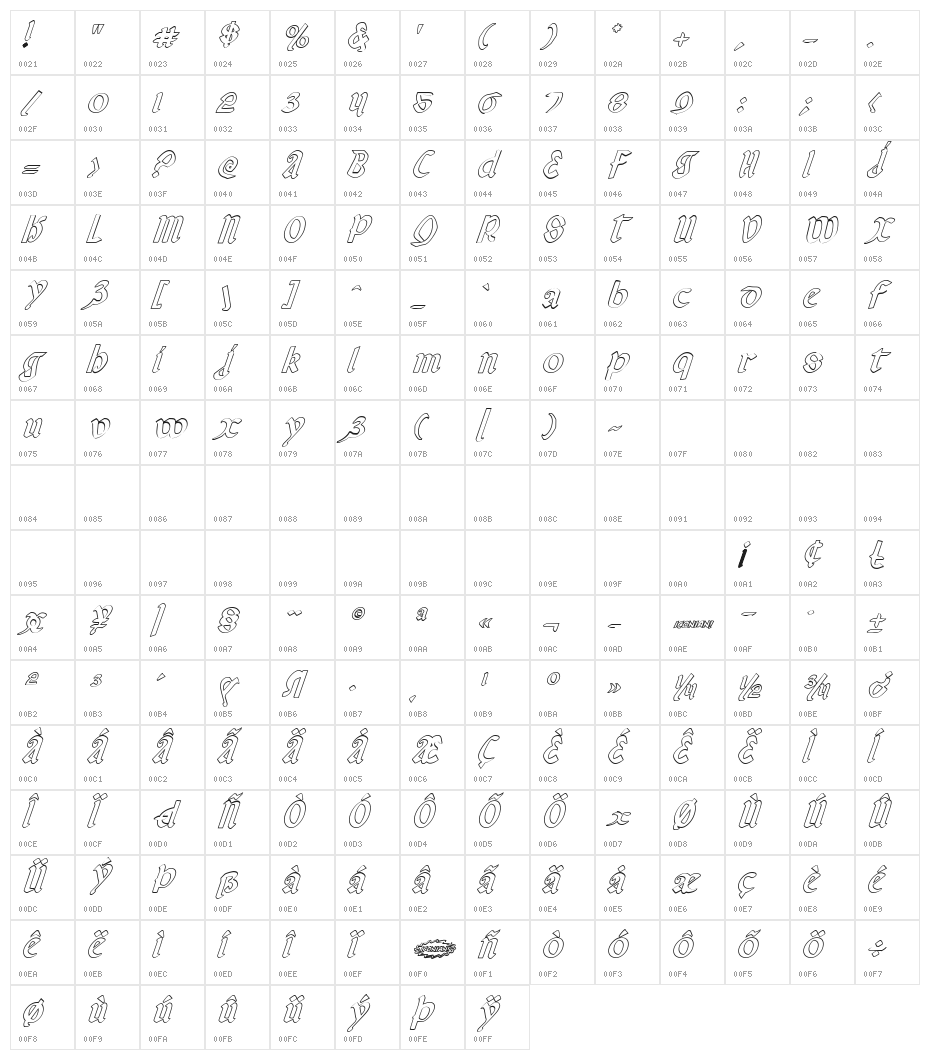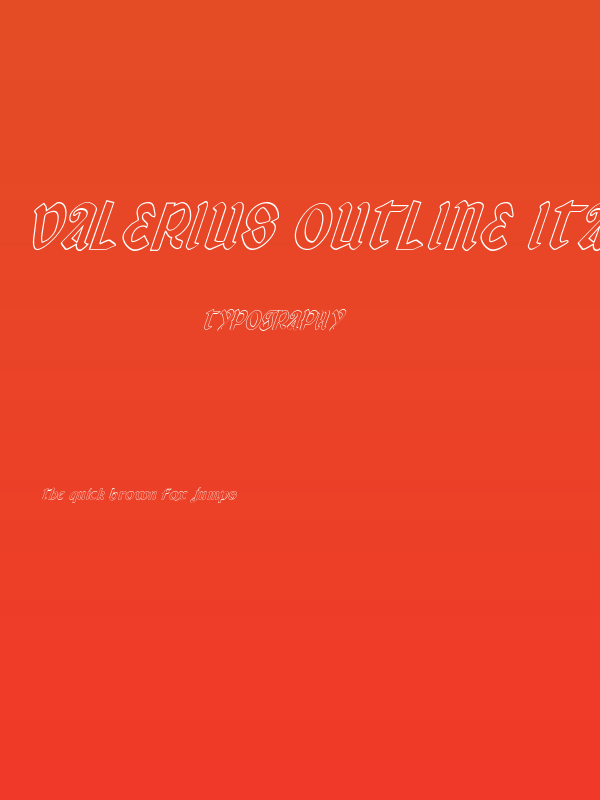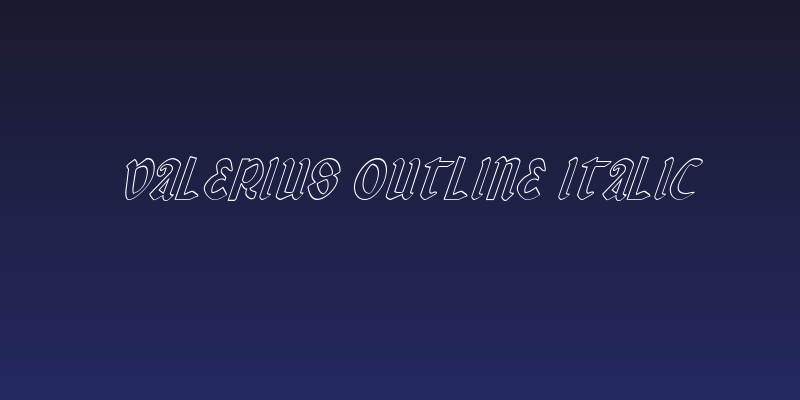
Valerius Outline Italic Font
Valerius Outline Italic Description
This font features a distinct outline style with an italic slant, giving it a dynamic and energetic appearance. The characters are designed with a consistent stroke width, creating a uniform look across both uppercase and lowercase letters. The font includes a full set of numerals and a variety of special characters, making it versatile for different design needs. Its outline nature allows for creative layering and color usage, enhancing visual interest. The italic angle adds a sense of motion and fluidity, making it suitable for projects that require a modern and stylish touch.
Proposed ProjectsIdeal for posters, logos, and headlines where a modern and stylish look is desired.